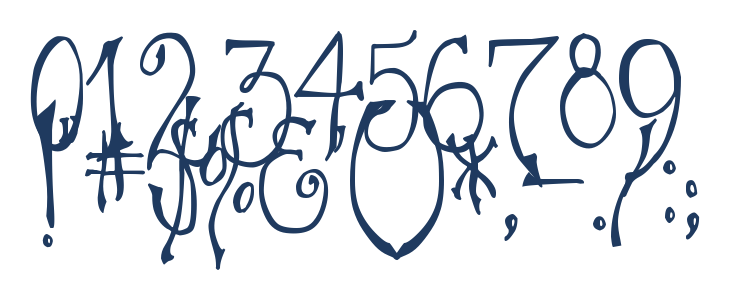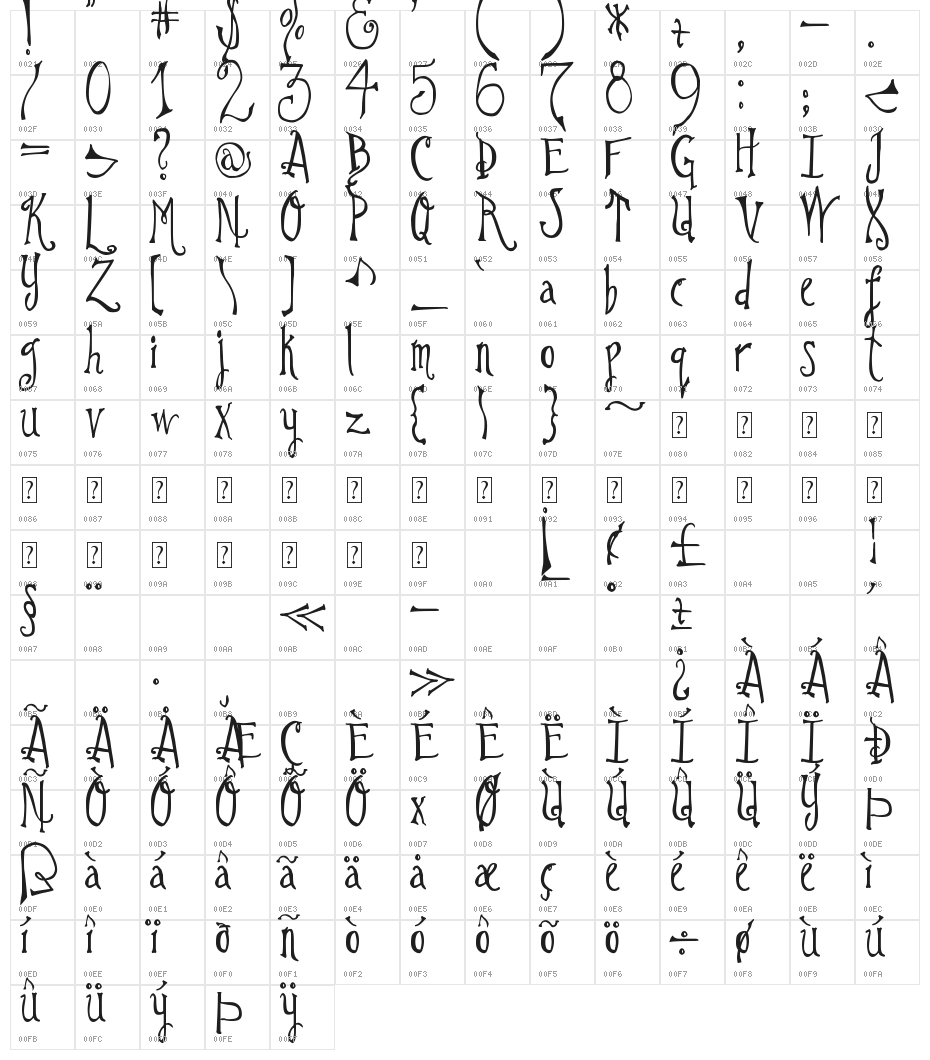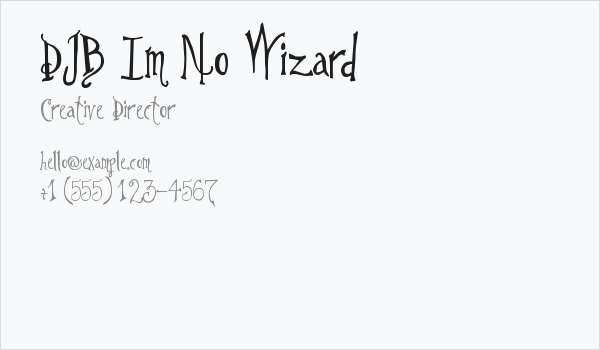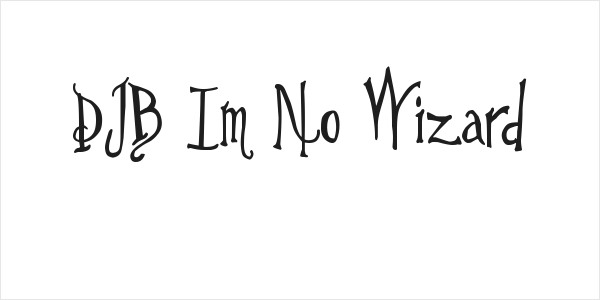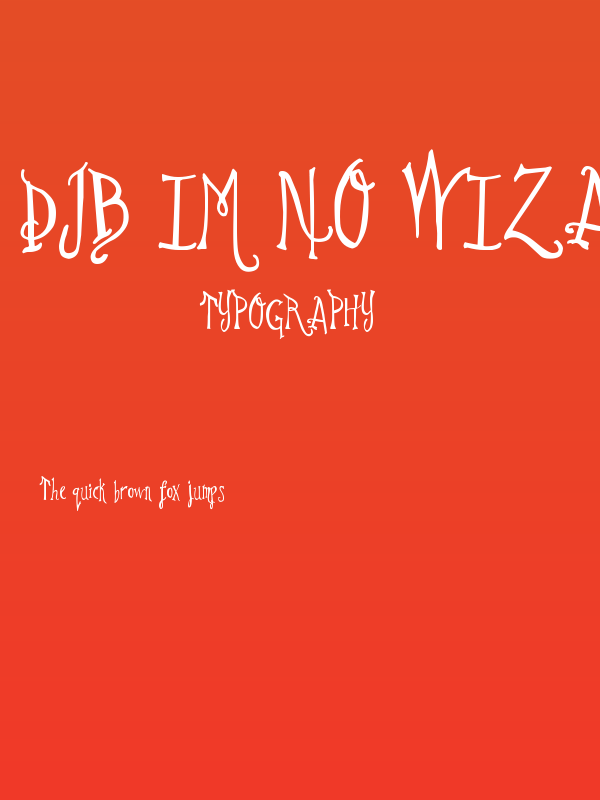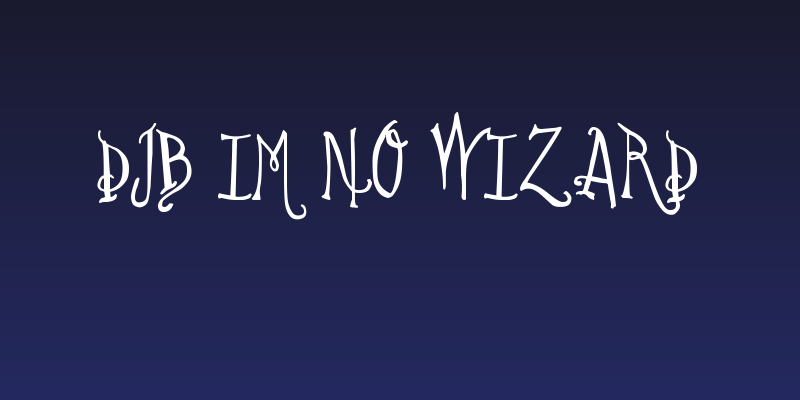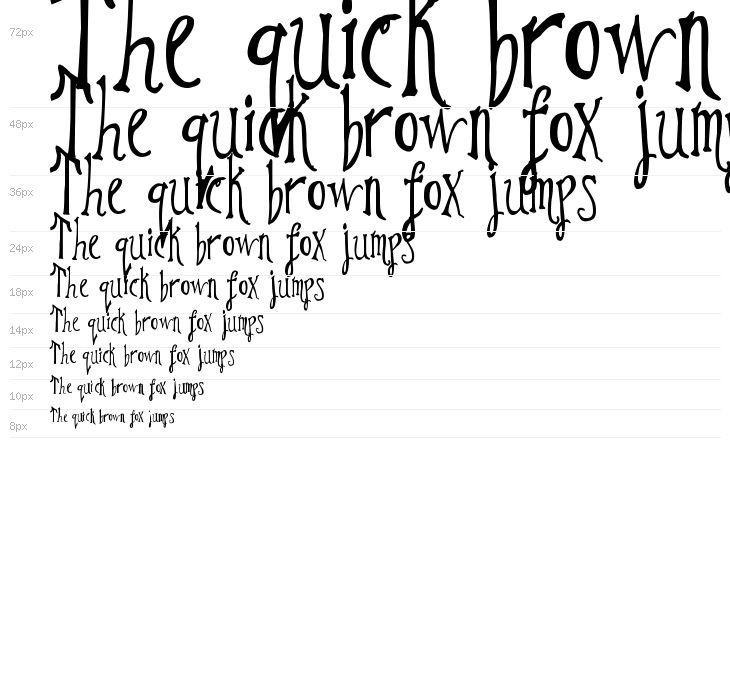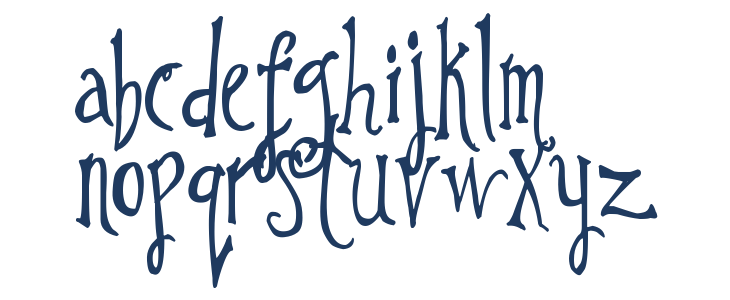
DJB Im No Wizard Font
DJB Im No Wizard Description
| Overall Style | Whimsical, Playful, Magical |
| Proposed Projects | Ideal for fantasy-themed projects, children's books, playful invitations, or any design requiring a touch of magic and whimsy. |